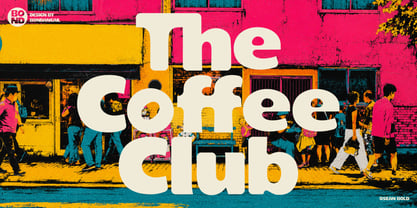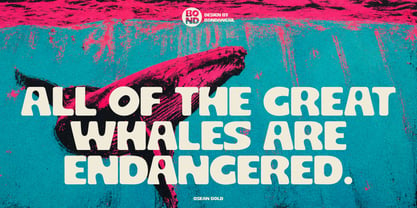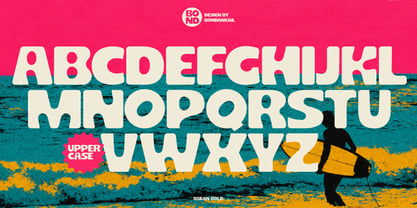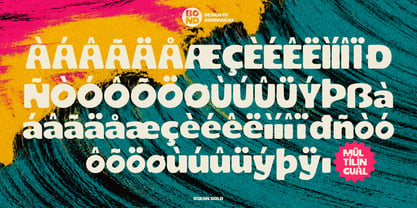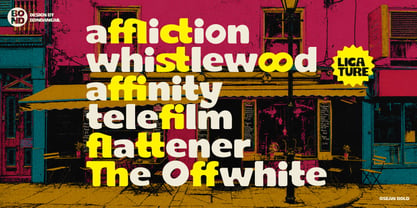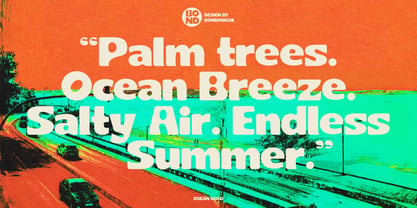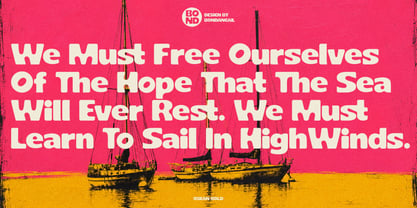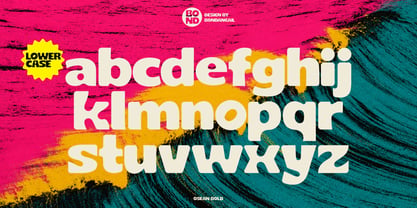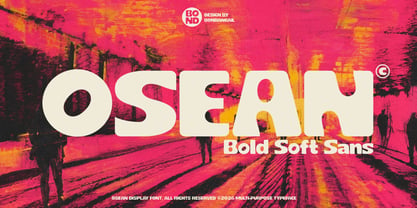
Osean
by BondanGail
Osean is a bold rounded sans-serif designed to make a strong impression with soft, modern curves. Its clean geometry, thick strokes, and friendly personality create the perfect balance between confidence and approachability, making it ideal for eye-catching display typography.
From logos and branding to packaging, posters, headlines, apparel, and social media, Osean delivers outstanding readability and bold visual impact. Whether you're creating a playful identity or a contemporary brand, Osean brings warmth, versatility, and modern style to every project.
Osean includes:
• 1 style Typefaces Regular
• Uppercase, Lowercase, Numeral, Symbol and Punctuation
• Multilingual
• Ligature